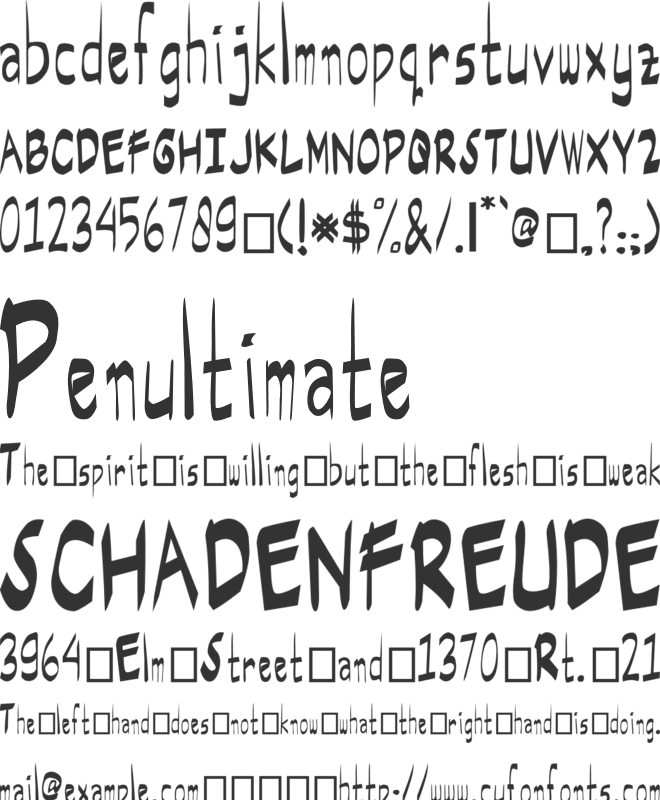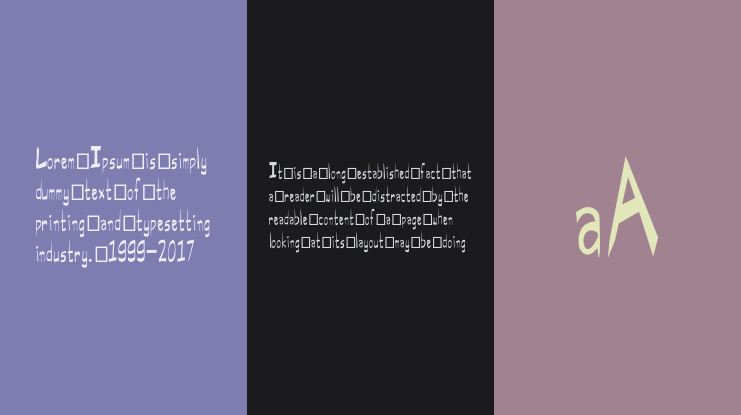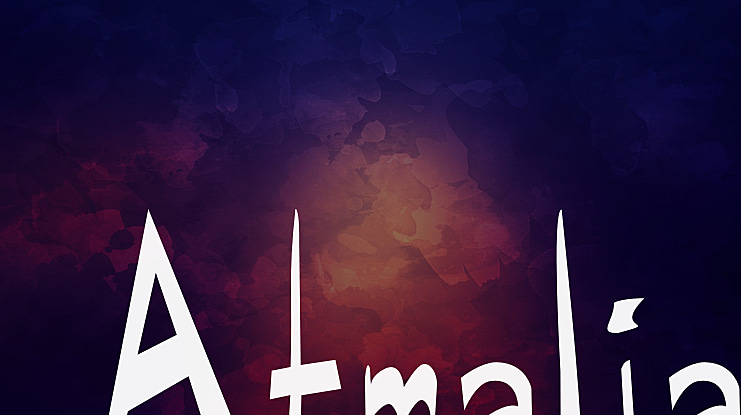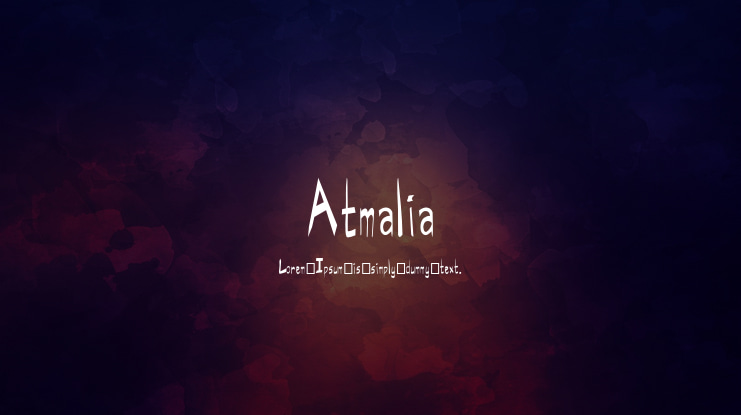
Atmalia Font
These letters are made from ordinary handwritten sketches which are then traced via Inkscape software. Standard Latin letters consist of 96 glyphs which support 24 languages. Suitable for use in children's books, invitations, quotes, prints on t-shirts or glasses and so on that are informal.